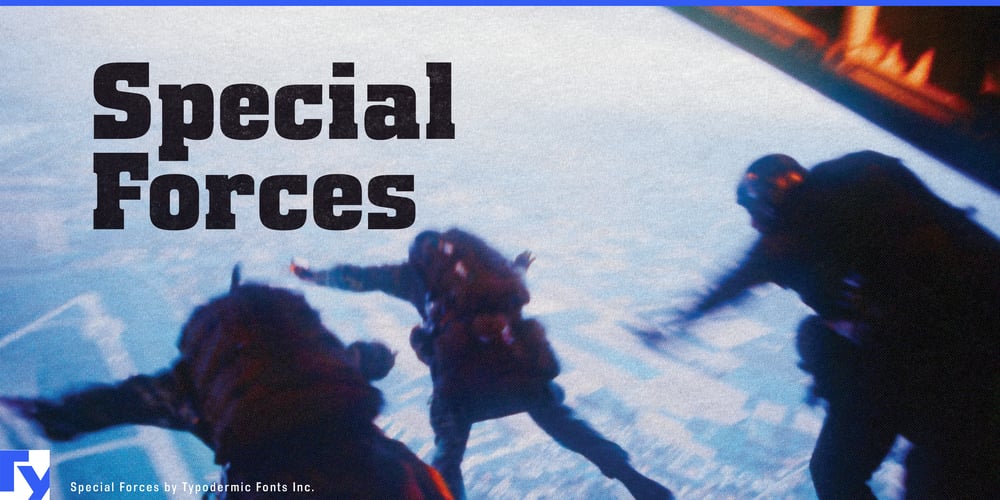
Special Forces
Special Forces font
Special Forces Font Family was designed by Ray Larabie and published by Typodermic. Special Forces contains 2 styles and family package options. Special Forces stands ready to deploy, a commanding slab serif that instills unwavering strength into every word it touches. This typeface doesn’t just communicate—it issues orders, with letterforms as efficient and unyielding as the elite units it’s named after.Forged in the crucible of design necessity, Special Forces boasts robust slab serifs that anchor each character with resolute determination. Its no-nonsense aesthetic eschews superfluous embellishments, focusing instead on raw functionality and visual impact. Like a well-oiled machine, every element of this typeface works in perfect unison to deliver your message with maximum authority. The typeface’s versatility shines through its dual deployment options: the steadfast regular style stands firm for clear, direct communication, while the dynamic oblique variant adds a sense of urgent forward motion to your typography. This tactical flexibility allows you to fine-tune the intensity of your visual communication, adapting to any design terrain with military precision.Special Forces’ linguistic arsenal is equally impressive, supporting an extensive range of Latin-based European writing systems. From Albanian to Zulu, this typeface ensures your message maintains its commanding presence across linguistic borders, making it an invaluable asset for international campaigns that require unwavering typographic strength. Deploy Special Forces when your design demands typographic fortitude. Whether you’re crafting hard-hitting headlines, forging impactful logos, or designing materials that need to convey absolute authority, this typeface will serve as the backbone of your visual strategy. It’s a call to action, a rallying cry in letterform.Choose Special Forces and watch your typography fall in line, ready to tackle any design objective with unwavering resolve. In the battlefield of modern design, this is the typeface that will lead your message to victory.